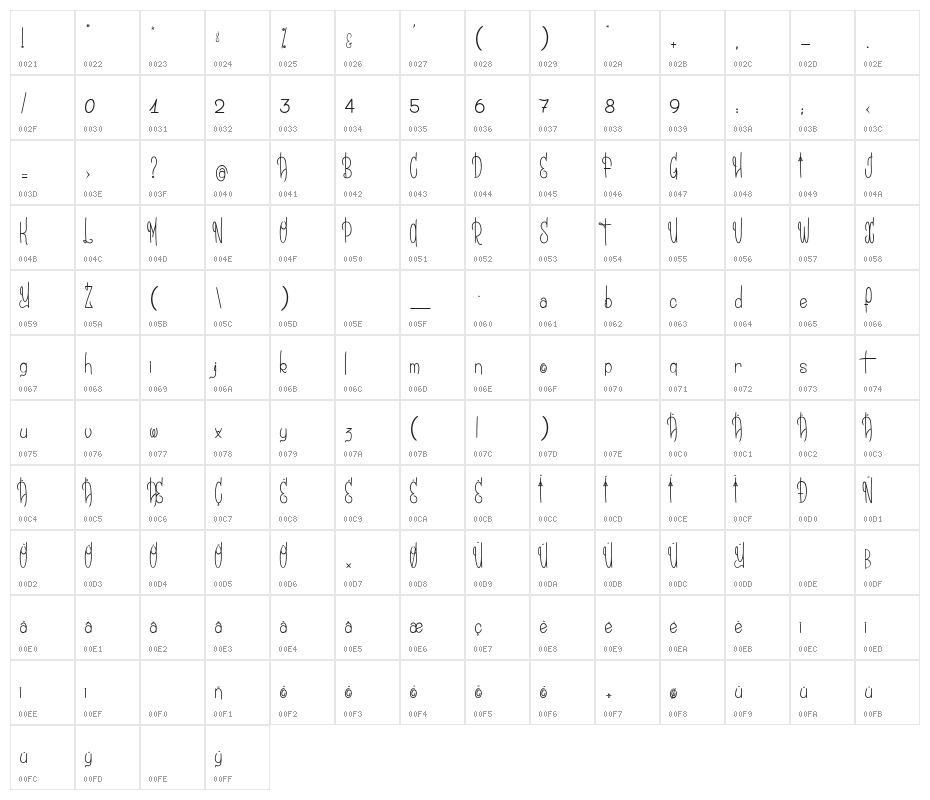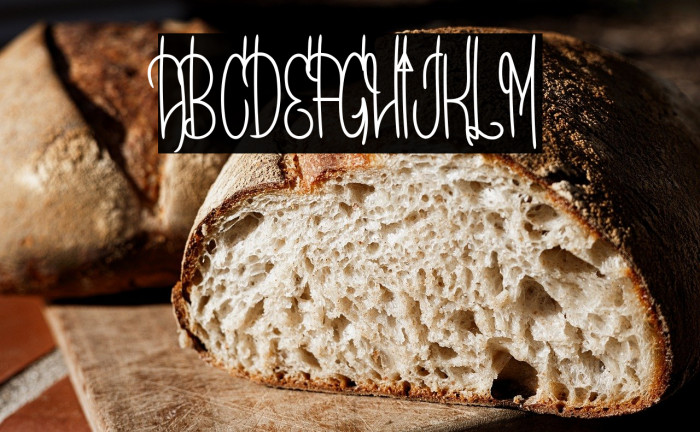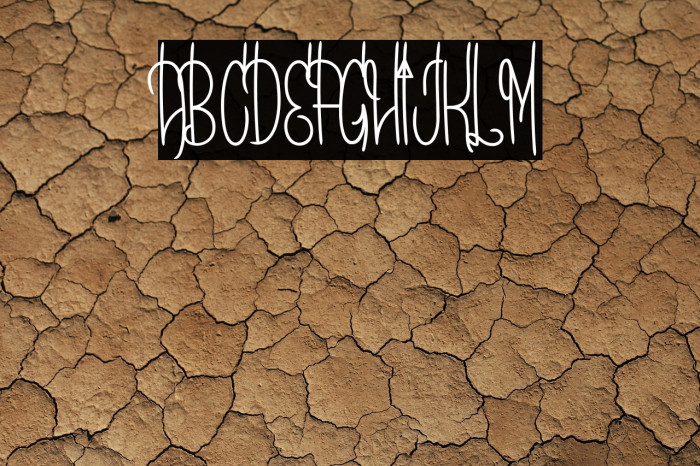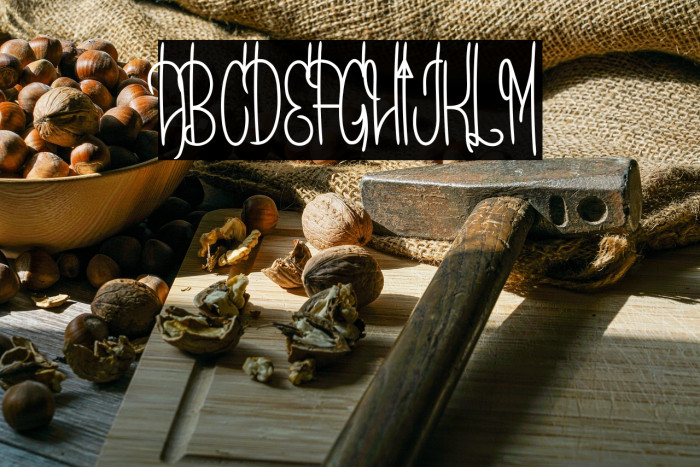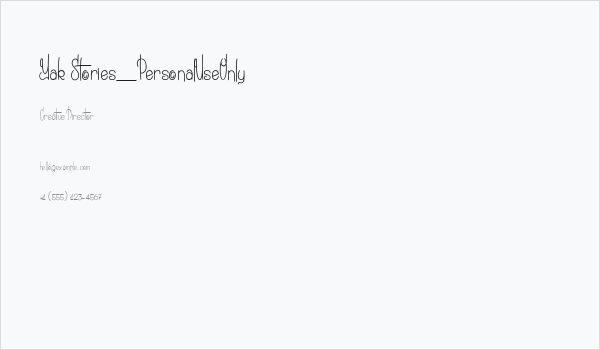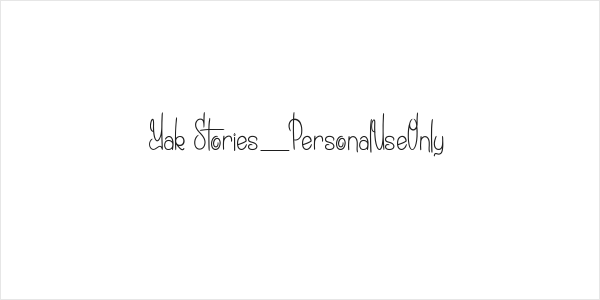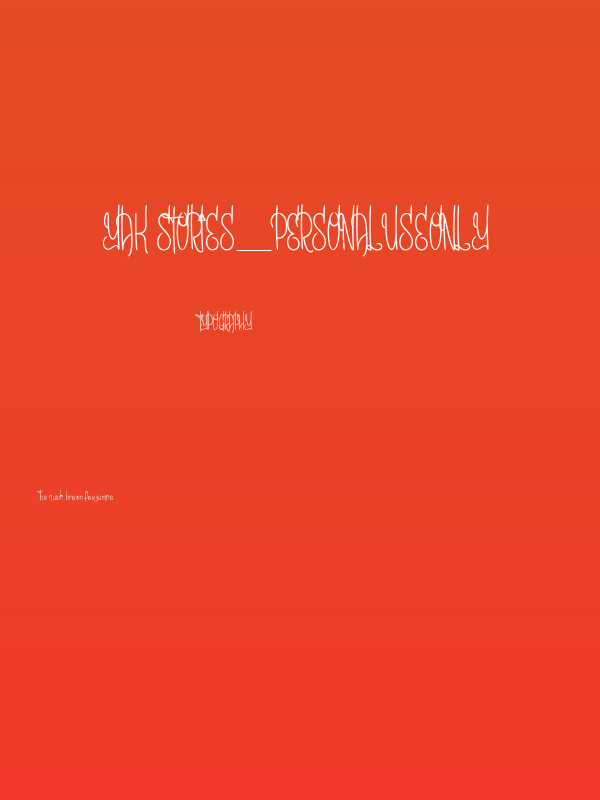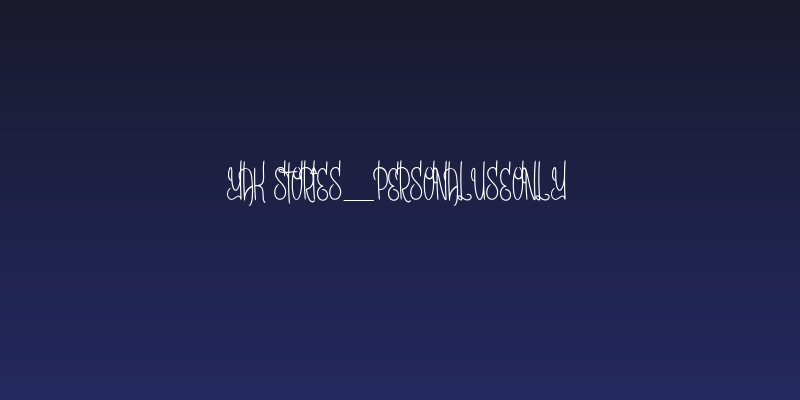
Yak Stories_PersonalUseOnly Font
Yak Stories_PersonalUseOnly Description
This font features a whimsical, handwritten style with tall, narrow characters that have a playful and slightly irregular appearance. The strokes are thin and consistent, giving it a delicate and airy feel. The uppercase letters are particularly elongated, adding to the font's quirky charm. The lowercase letters maintain a similar style, with some characters having unique loops and curves that enhance its playful nature. The numerals and special characters follow the same design principles, ensuring a cohesive look throughout. This font is ideal for projects that require a touch of personality and creativity.
| Proposed Projects | Great for children's books, creative invitations, playful branding, and artistic posters. |